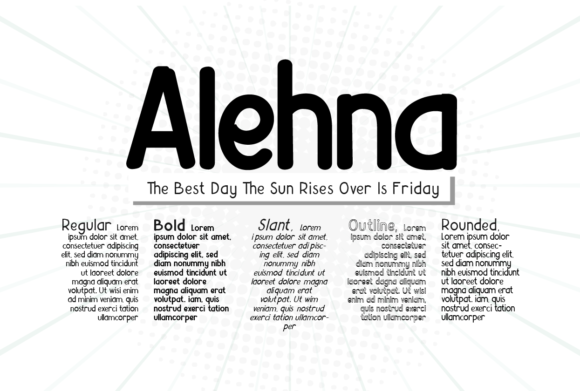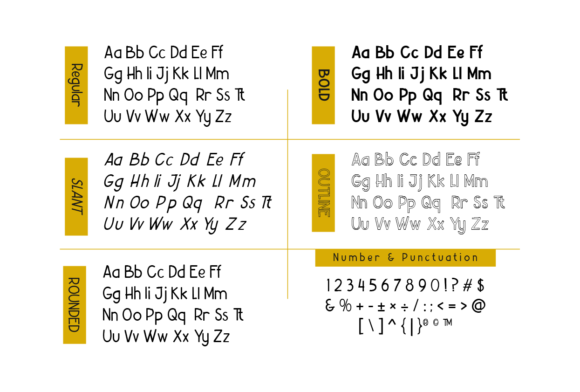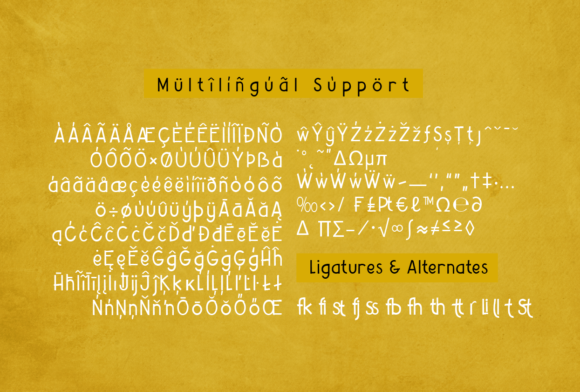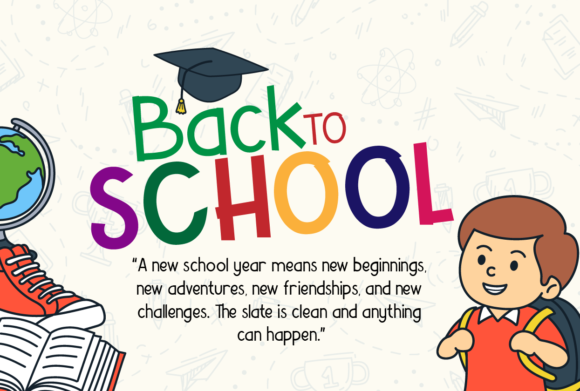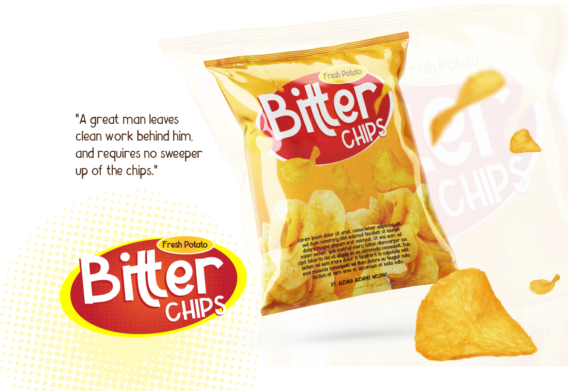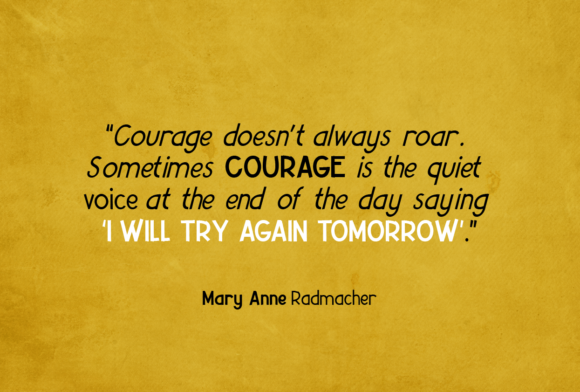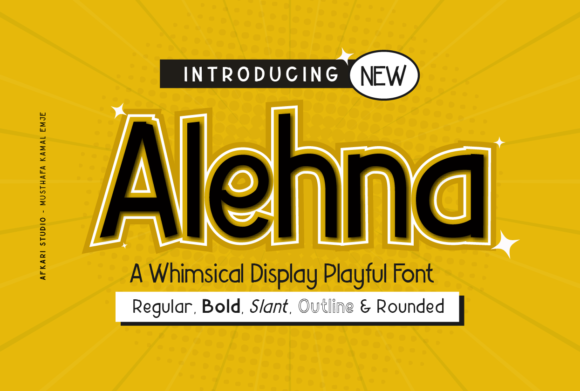
The Alehna Font: A Casual Display Font for Creative Projects
In this article, we’ll dive into the world of Alehna, a beautiful casual display font that’s perfect for designers, crafters, and creative hobbyists. We’ll explore its features, how to use it, and some similar fonts you might love.
An Honest Review of Alehna Font
What I Love About Alehna ✨
- ✨ Simple and easy to use: Alehna is a straightforward font that’s perfect for beginners and pros alike.
- ✅ Beautiful in craft designs: Alehna adds a touch of elegance to any craft project, from paper crafting to sewing.
- 💕 Versatile: Alehna works well in a variety of contexts, from digital designs to print materials.
- ⚠️ Limited character set: Alehna has a limited character set, which might not be suitable for projects that require a wide range of characters.
- 🤔 Not suitable for body text: Alehna is a display font, and it’s not designed for body text. It’s best used for headings and titles.
The Backstory of Alehna Font
Alehna was designed by a talented typographer who’s passionate about creating beautiful, functional fonts. The font was inspired by the simplicity and elegance of handwritten scripts, with a modern twist. The designer aimed to create a font that’s easy to read, yet stylish and sophisticated.
| Font Name | Alehna Font |
| Author | afkaristudio |
Q: What is Alehna font?
A: Alehna is a casual display font that’s perfect for creative projects, such as craft designs, digital art, and print materials.